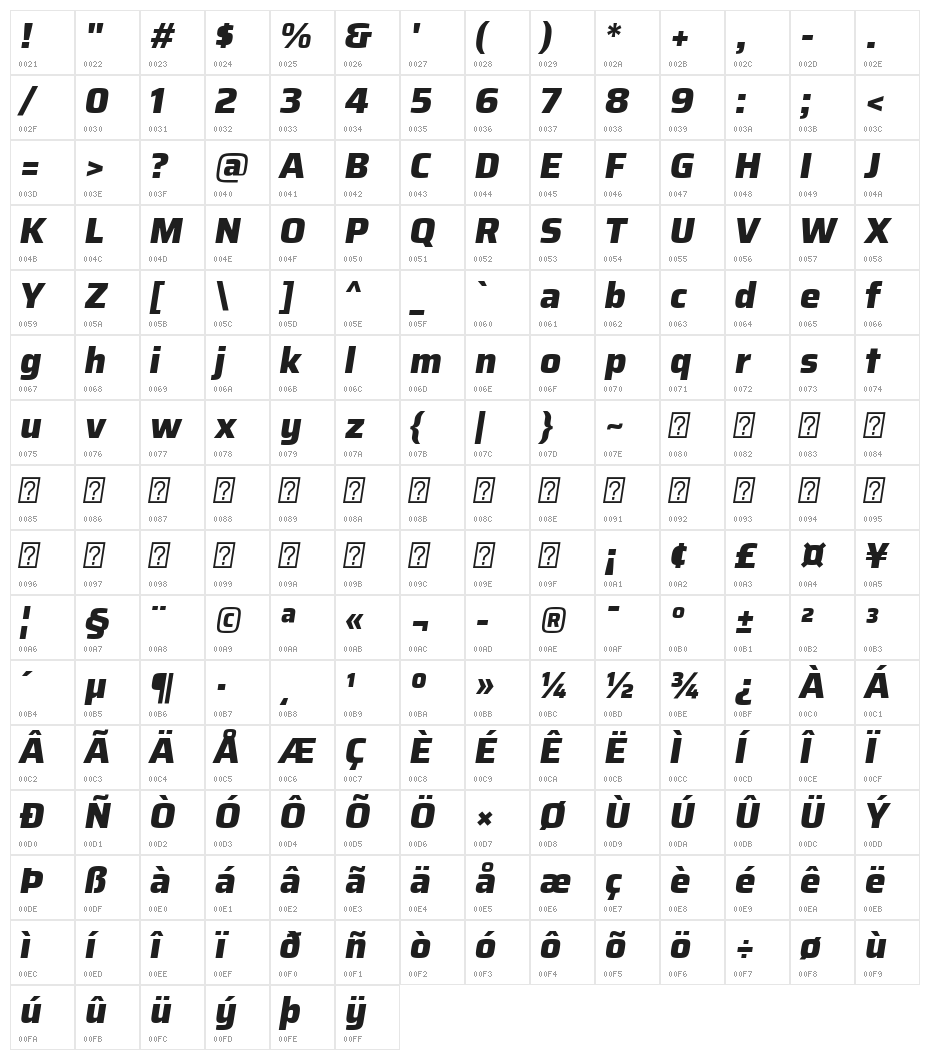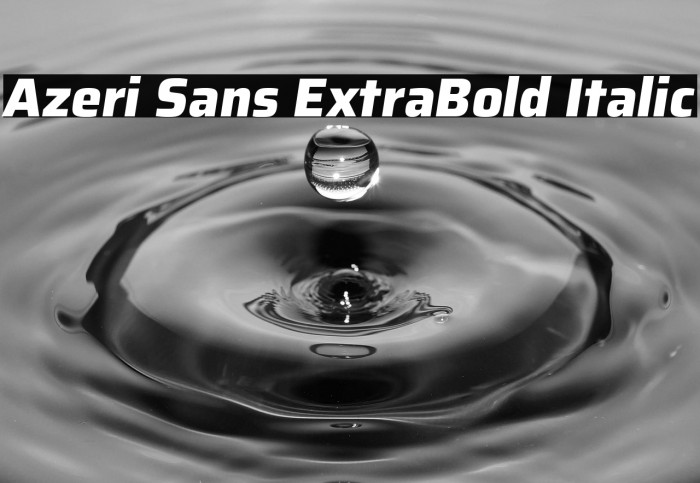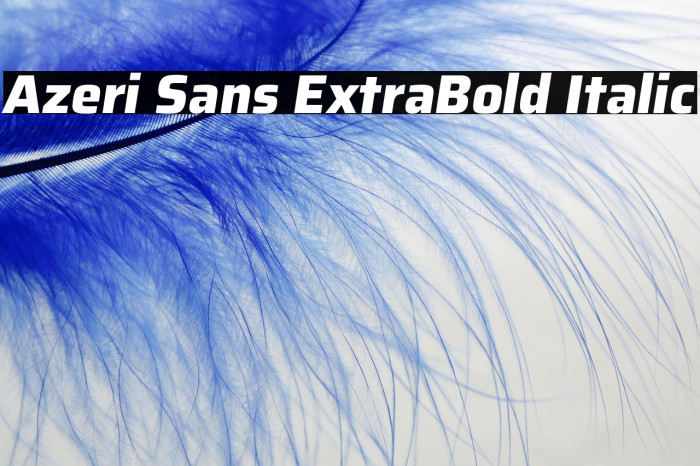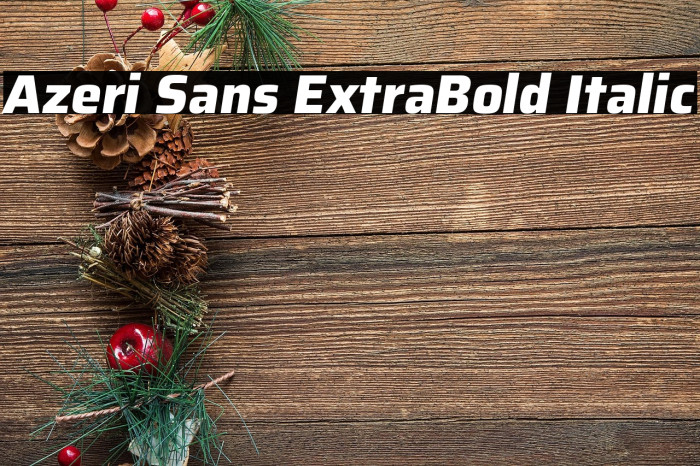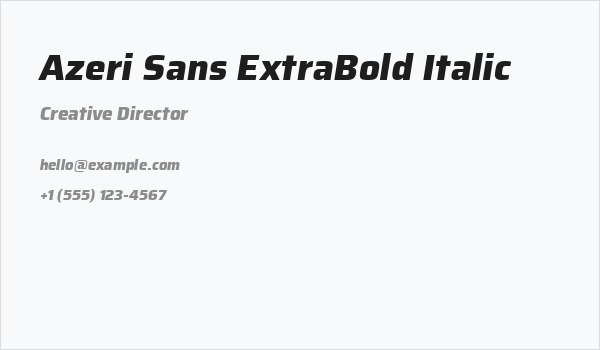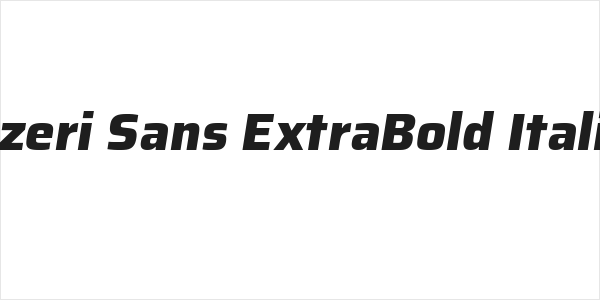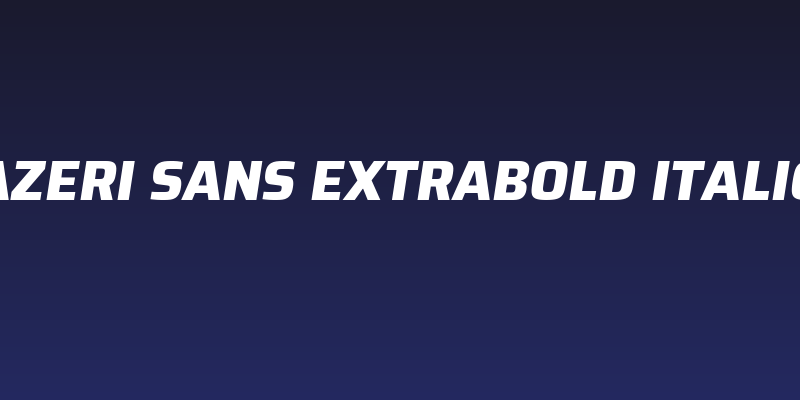
Azeri Sans ExtraBold Italic Font
Azeri Sans ExtraBold Italic Description
This font features a bold and dynamic sans-serif style with a pronounced italic slant, giving it a sense of motion and energy. The characters are robust and impactful, with consistent stroke widths that contribute to a strong visual presence. The uppercase and lowercase letters maintain a uniform appearance, while the numerals are clear and easily distinguishable. Special characters are well-integrated, maintaining the font's cohesive look. The overall design is modern and versatile, suitable for a variety of applications where a bold statement is needed.
| Use Case | Headlines, Logos, Advertising |
| Proposed Projects | Ideal for branding, advertising, headlines, and any project requiring a strong, modern typeface. |